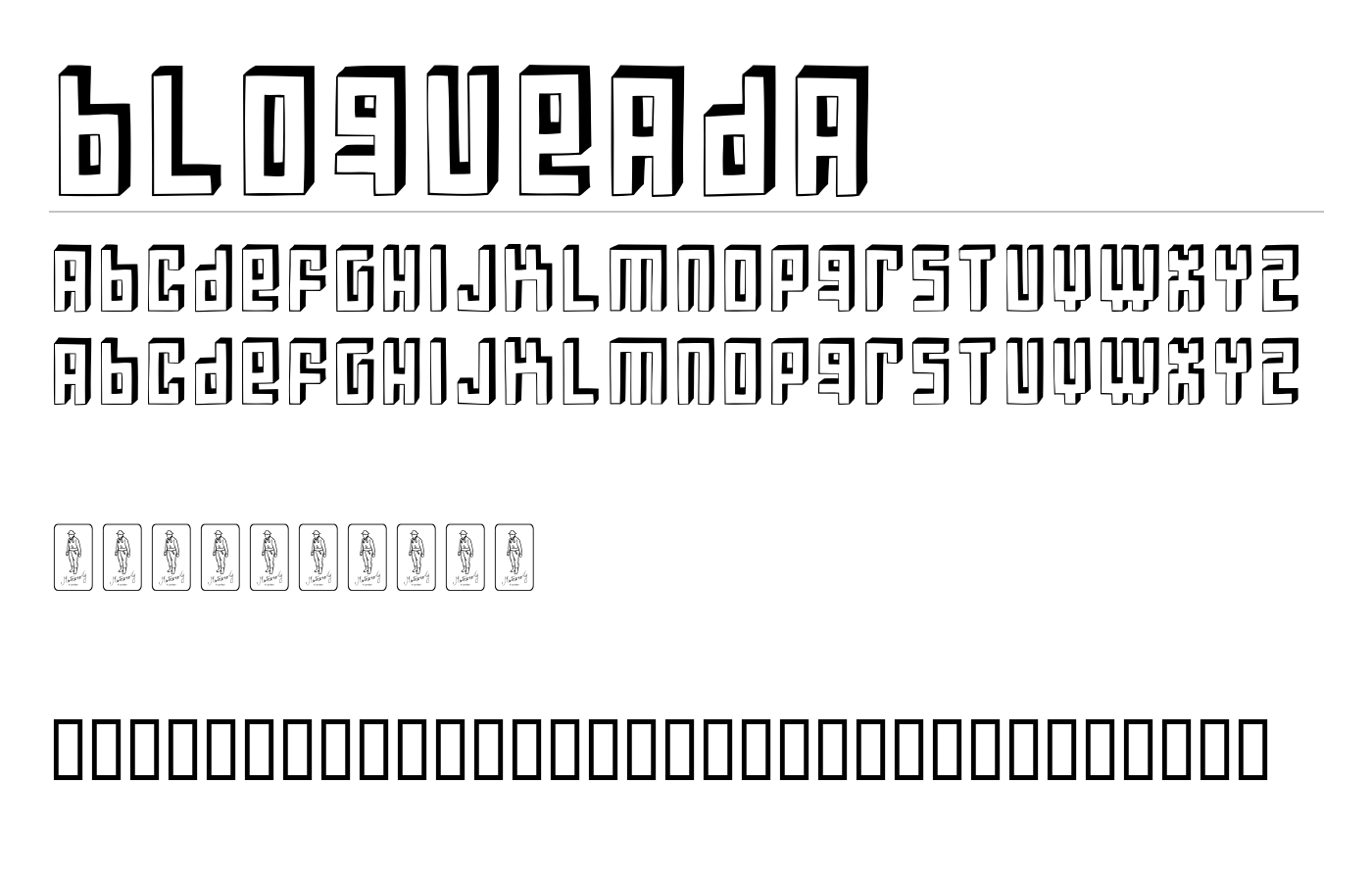
Bloqueada is a bold, condensed sans serif font with a distinctive blocky and geometric style that gives it a strong, modern feel. Its thick lines and sharp edges create a playful yet structured look, making it ideal for eye-catching headlines, posters, and branding that aims to stand out with a unique and contemporary personality. This font works well where bold visual impact is needed, blending both creativity and clarity.
Bloqueada Font